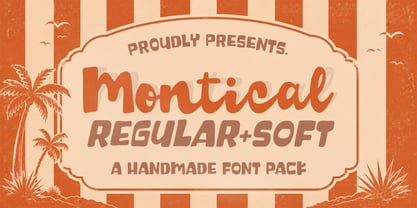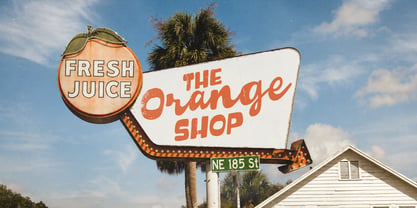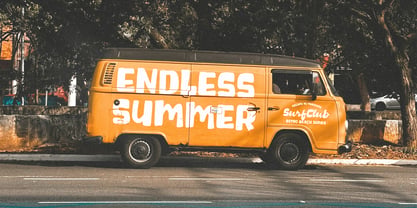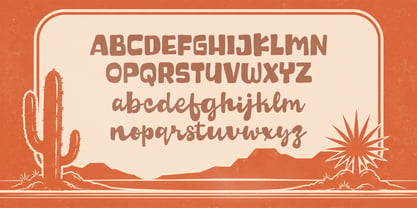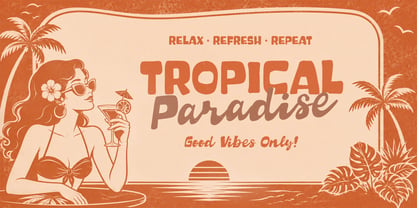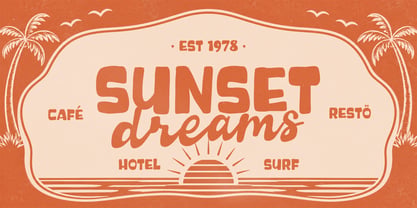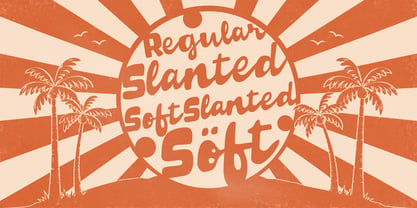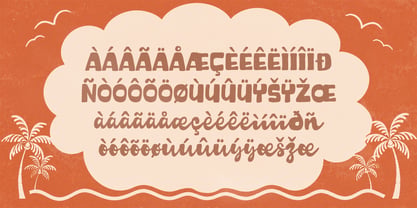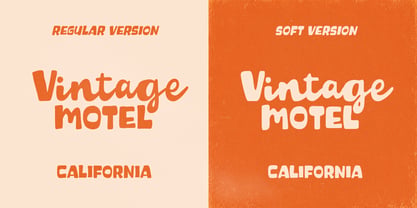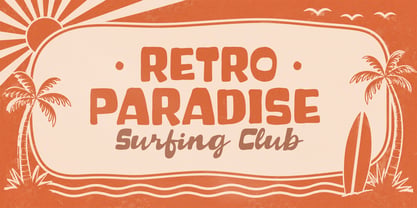
Montical
Die Schriftfamilie Montical wurde von Fajar Gunawan entworfen und von Fargun Studio veröffentlicht. Montical enthält 4 Stile und Familienpaketoptionen. Mehr über diese Familie
Montical is a playful handmade display font duo that blends bold retro charm with a soft, friendly personality. Inspired by vintage beach signs, classic surf culture, and nostalgic summer vibes, Montical combines a smooth script style with a chunky rounded sans to create eye-catching typography full of warmth and character.
Designed for logos, branding, packaging, posters, apparel, social media, and creative projects, Montical delivers a fun and approachable look while maintaining excellent readability. Its handcrafted details, flowing curves, and retro aesthetic make it perfect for designs that need a cheerful, authentic, and memorable touch.
Whether you're creating a tropical brand, a vintage-inspired poster, or a playful product identity, Montical brings a timeless handcrafted feel that instantly stands out.